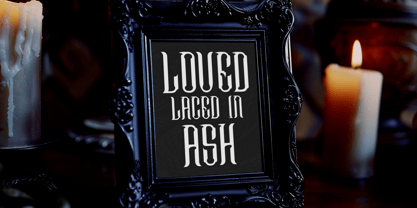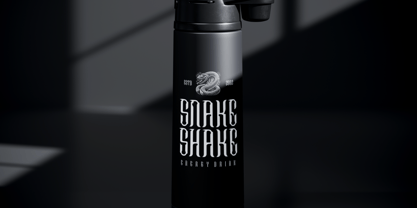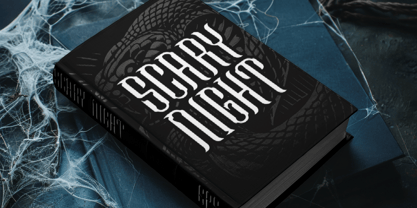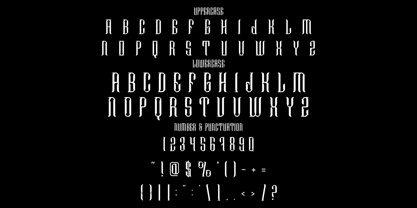
Drakur Black
by Shanaf
The Drakur Black Font Family was designed by Yesie Erma Yunita and published by Shanaf. Drakur Black contains 1 styles. More about this family
Drakur Black Letter Font is a bold reinterpretation of gothic elegance infused with a modern black metal spirit. With its tall, narrow proportions and sharp vertical weight, each character is designed to dominate space and evoke mystery. The intricate line contrast and subtle vintage curves give this font a high impact aesthetic, making it an excellent choice for titles, posters, logos, and edgy brand identities. Its typographic DNA lies in historic blackletter traditions, but with an unmistakable modern twist that appeals to tattoo artists, metal bands, and contemporary fashion labels alike.
From beverage branding and merchandise to horror film titles and ceremonial invitations, Drakur adapts seamlessly to any creative output requiring a strong, expressive voice. The layout structure emphasizes verticality, ideal for stacking words in compact, dramatic compositions. Uppercase and lowercase variants are harmonized in form, with additional punctuations and numerals completing a full visual system. Whether it's in monochrome palettes or vibrant color schemes, Drakur ensures your message is delivered with authority and aesthetic precision.
Designers: Yesie Erma Yunita
Foundry: Shanaf
Drakur Black